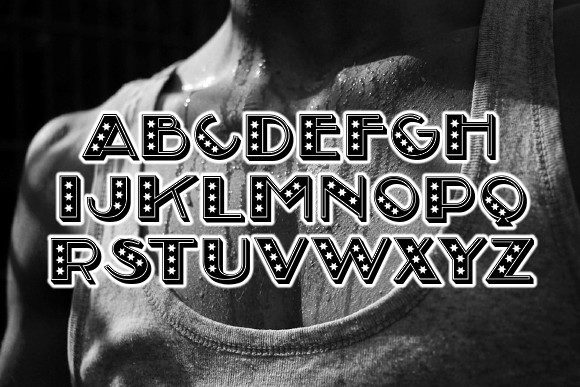
The Adrenaline Font: A Game-Changer for Your Design Projects
I’ll never forget the time I was working on a project for a client who needed a bold, eye-catching font to make their poster stand out. I had tried countless fonts, but none seemed to fit the bill. That was until I stumbled upon the Adrenaline font family. With its two sleek styles, this font has become a go-to in my design toolkit, and I’m excited to share its awesomeness with you! 🚀
An Honest Review of Adrenaline Font
• ✨ Versatility: Adrenaline font comes in two styles, making it perfect for pairing with other fonts or using on its own.
• ✅ Readability: The font is clear and easy to read, even in smaller sizes.
• 💥 Impact: The bold, edgy design makes it perfect for posters, flyers, and other attention-grabbing materials.
While Adrenaline font is amazing, there are a few things to keep in mind:
• 🤔 Limited use cases: While it’s great for posters and flyers, it might not be the best choice for body text or smaller designs.
• ⚠️ Glyph limitations: Some users have reported limited glyph options, which might be a drawback for certain projects.
The Designer Inspiration Behind Adrenaline Font
While the true story behind Adrenaline font remains a mystery, it’s easy to imagine that its designers were inspired by the world of sports and action. Perhaps they wanted to create a font that captured the energy and excitement of extreme sports, or maybe they simply sought to craft a bold, attention-grabbing typeface. Whatever the inspiration, Adrenaline font is sure to bring a boost of energy to your designs! 💪
Q: What type of projects is Adrenaline font best suited for?
A: Adrenaline font is perfect for posters, flyers, and other attention-grabbing materials. It’s also great for headlines, titles, and short text passages.
Q: Can I use Adrenaline font for body text?
A: While Adrenaline font is clear and readable, it’s not ideal for body text or smaller designs. Its bold, edgy design works best in larger sizes.
Q: Does Adrenaline font support OpenType features?
A: Yes, Adrenaline font supports OpenType features, including stylistic alternates, glyphs, and ligatures.